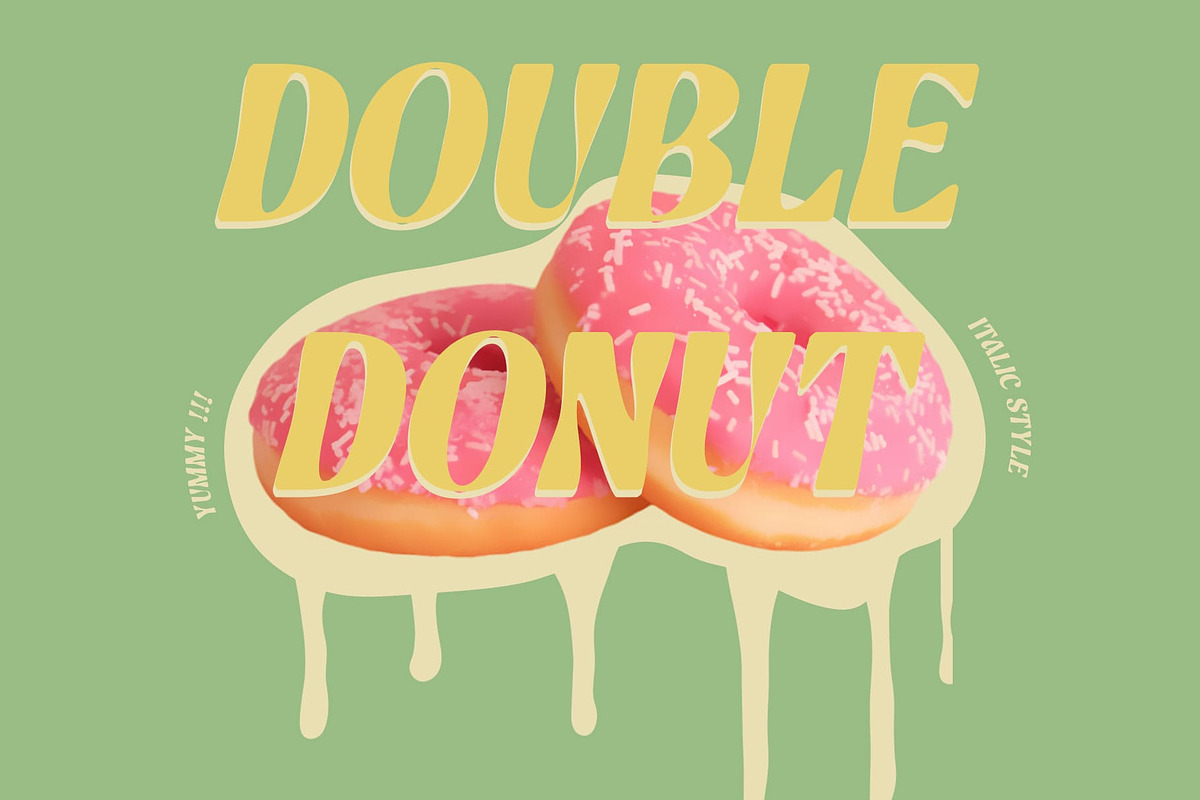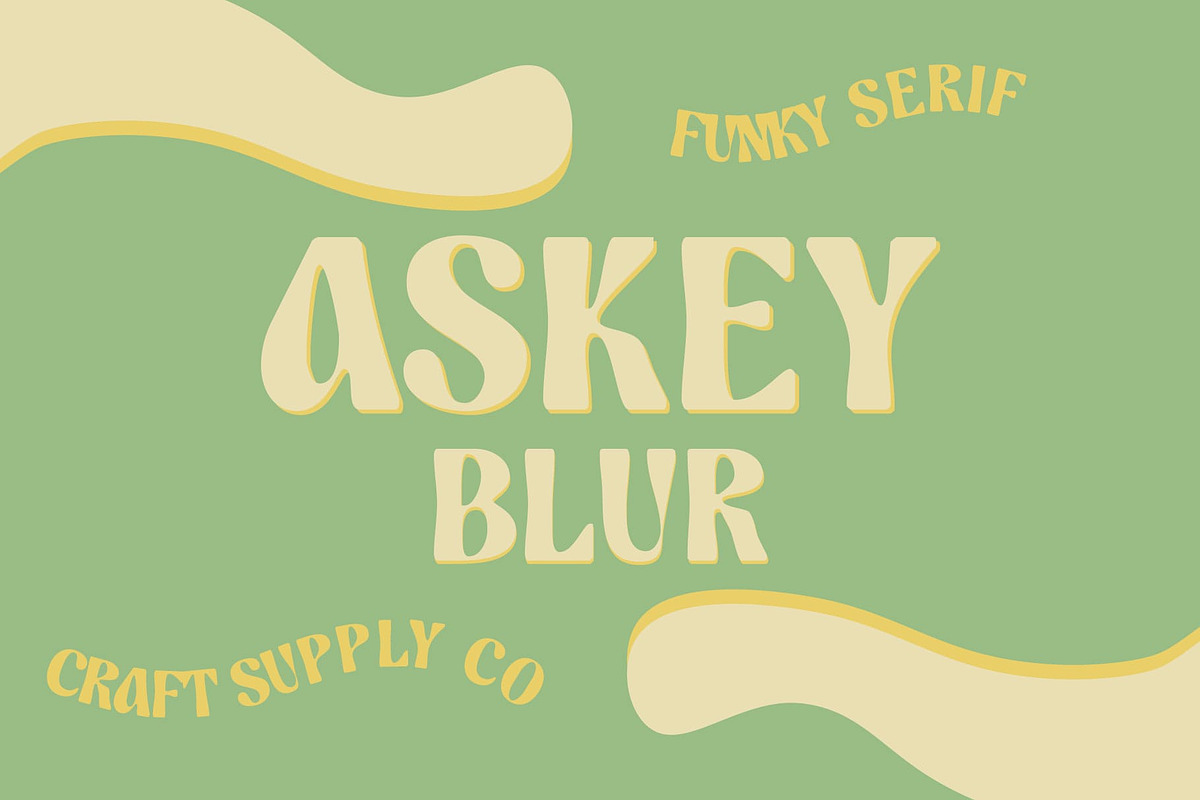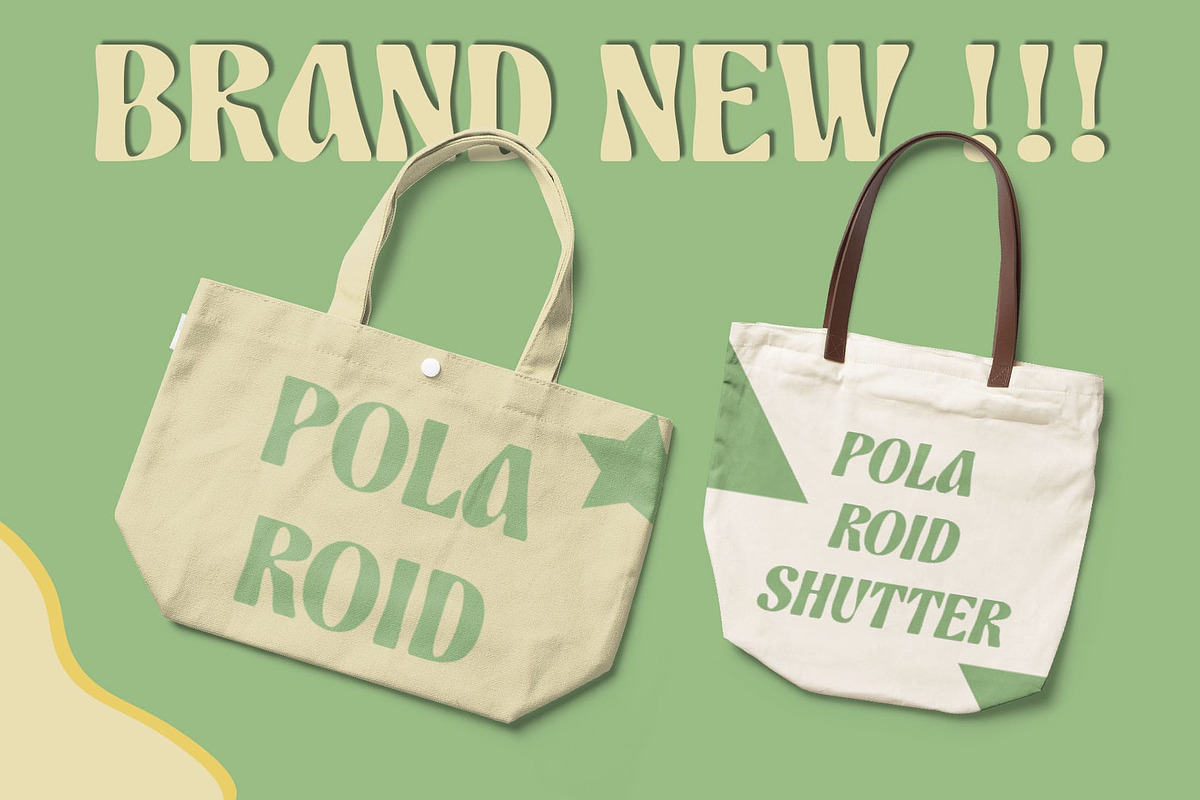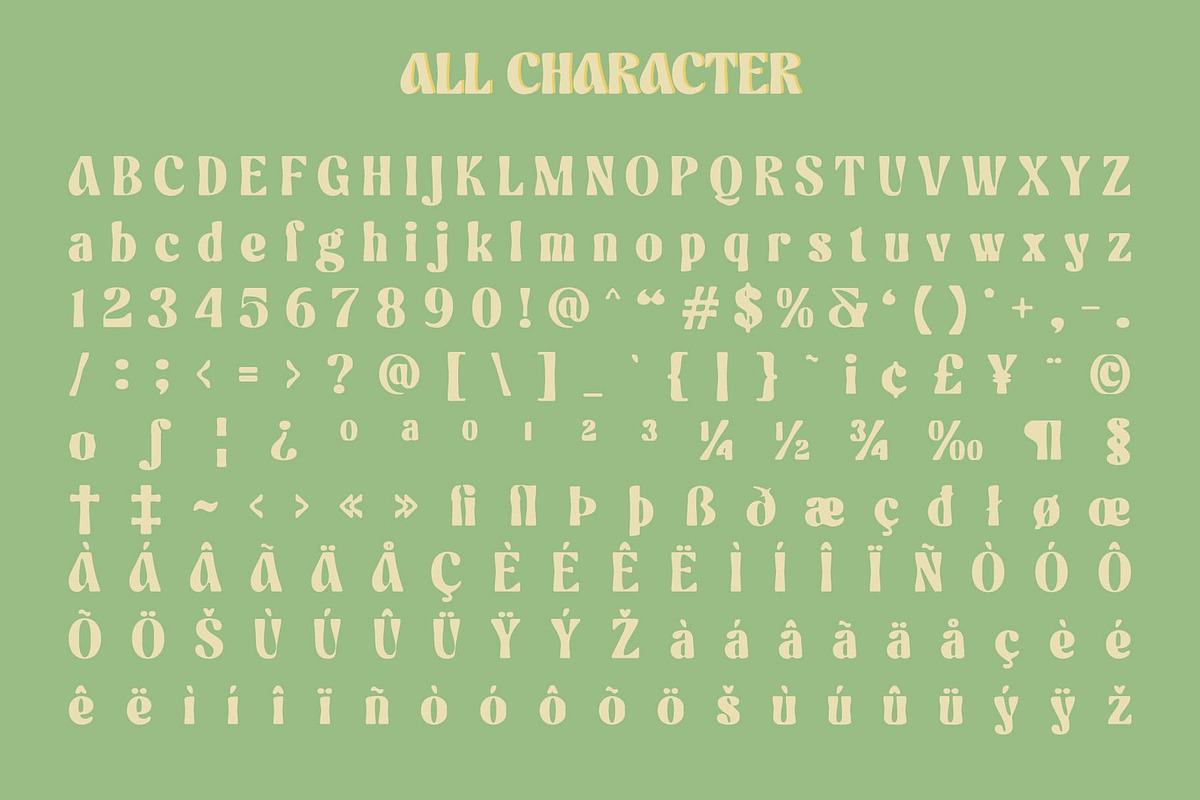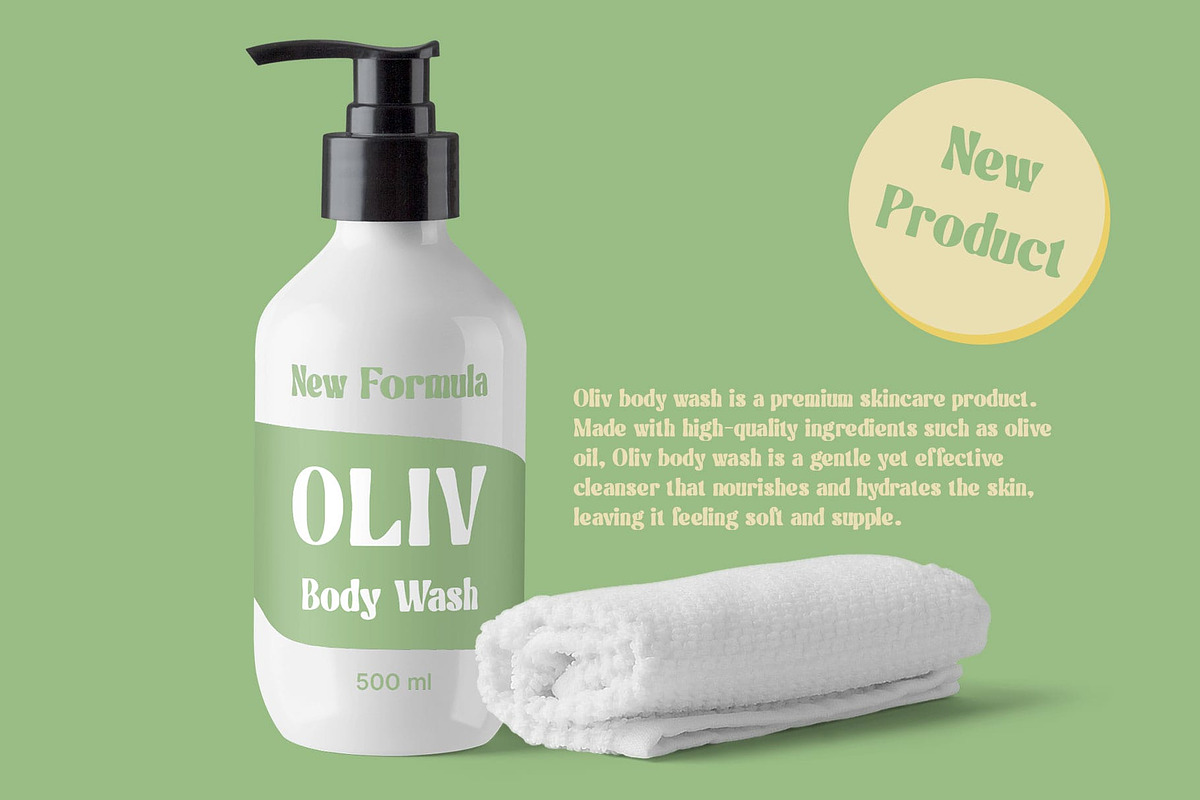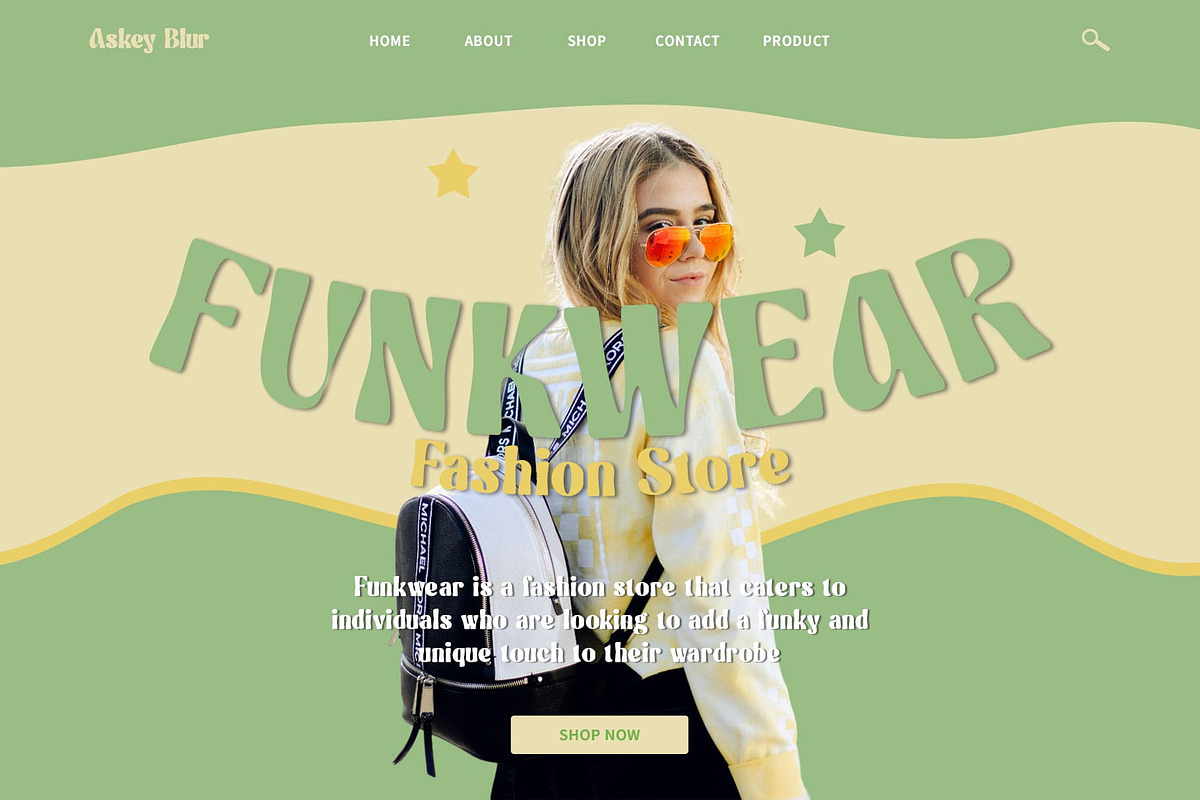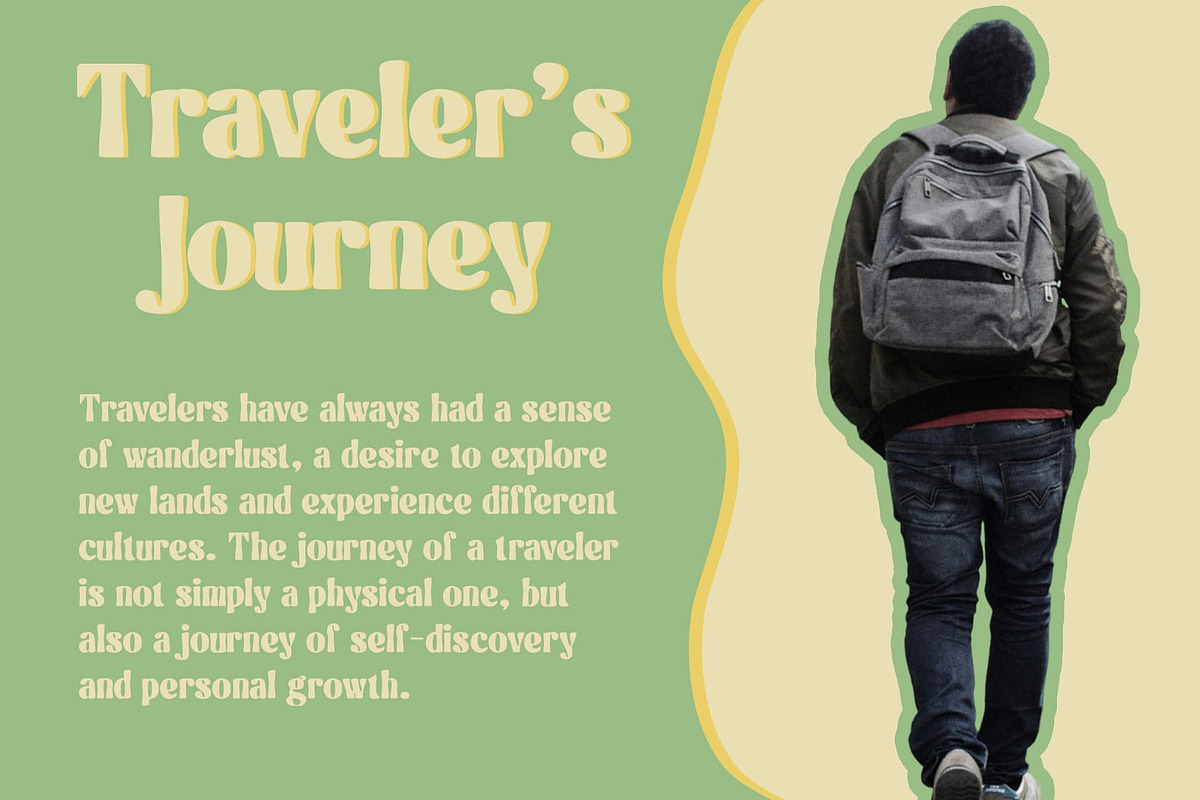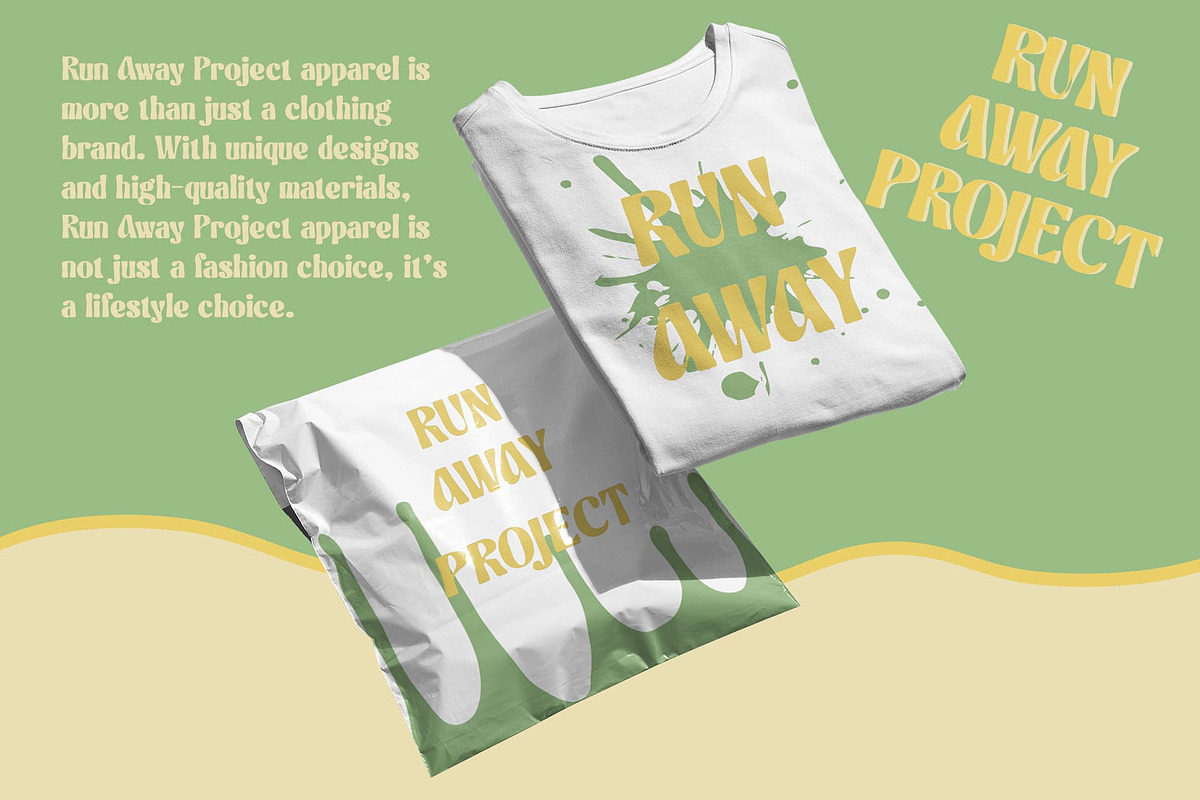
Askey Blur
Askey Blur: Funky and Cute Vibes
Funky and Cute Display Font Askey Blur exudes funky and cute vibes with its playful design and whimsical aesthetic. Perfect for projects seeking a youthful and fun appeal.
Blur Effect for Creative Flair The font showcases a distinctive blur effect, akin to ink smudges or paint spills, adding a touch of spontaneity and creativity to its appearance.
Ink-Like Appearance for Artistic Touch With its blur effect, This font mimics spilled ink, creating a dynamic and fluid look reminiscent of artistic accidents. This adds an intriguing layer of depth to any design.
Versatile Application Across Designs Despite its whimsical appearance, This font is surprisingly versatile, suitable for various design projects such as posters, packaging, branding, and more. Its playful charm infuses character into every layout or composition.
Playful and Dynamic Font This font is not just a font; it’s a statement. Combining funky vibes with a cute aesthetic and enhanced by its unique blur effect, it brings creativity and fun to any design, making it an ideal choice for designers seeking to inject personality into their projects.